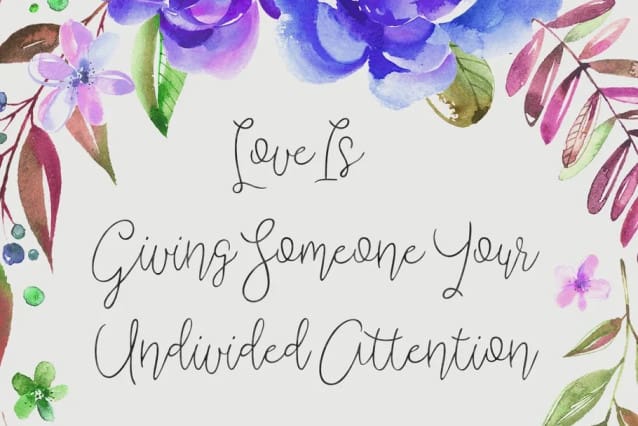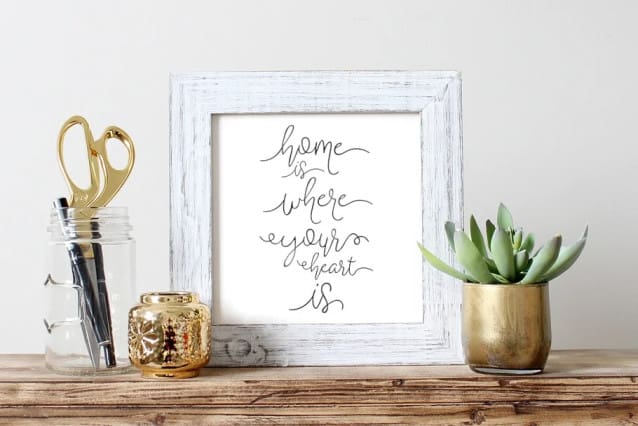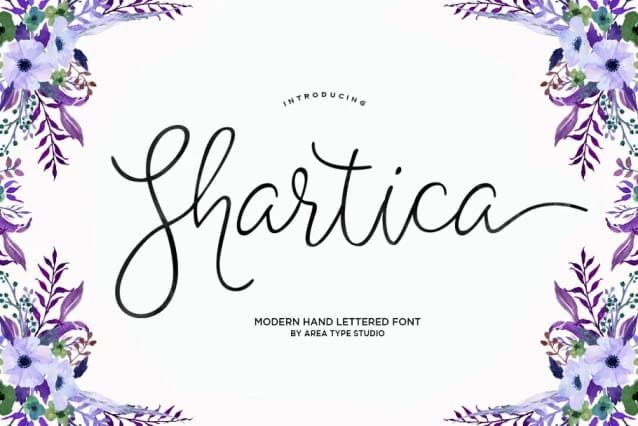
Shartica Script Font
Shartica Script Font is modern hand lettered font, organic, fun with dancing baseline. Different alternates and swashes to the beginning and ends of all lowercase.
Features 310+ glyphs and 129+ alternate characters. Opentype features with ligatures, stylistic sets and International support for most Western Languages is included. This fonts can be used for various purposes.such as headings, signage, signature, t-shirt, letterhead, lable, posters, wedding invitation, logos, news, badges etc/